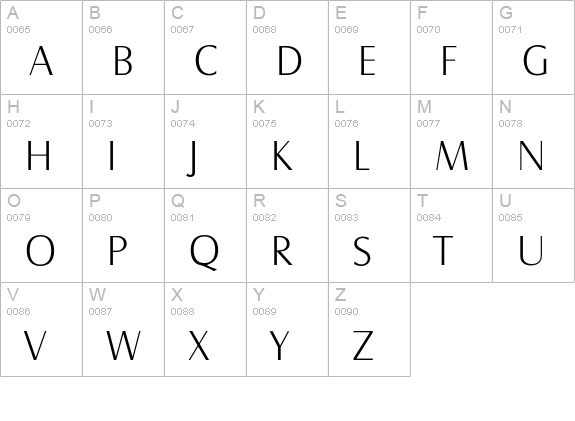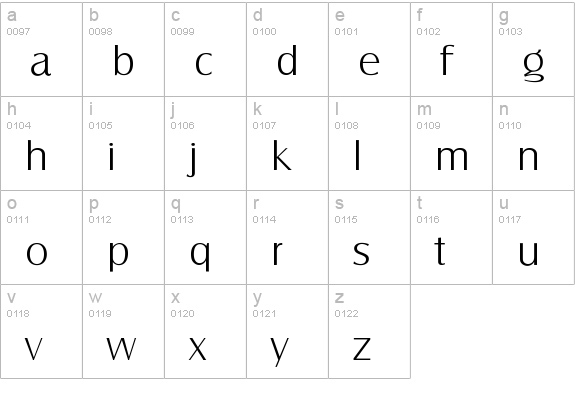
Salzburg-Xlight font is a modern and elegant typeface that exudes sophistication and refinement. With its slender and delicate letterforms, this font is perfect for creating a sense of grace and subtlety in any design project. The Salzburg-Xlight font effortlessly combines classic elements with a contemporary twist, making it versatile and well-suited for a wide range of creative applications. Whether you're designing a logo, crafting a wedding invitation, or creating a stylish branding campaign, this font will elevate your work and leave a lasting impression. One of the best things about Salzburg-Xlight font is that it is available for free download at FontsMarket.com. This means that you can easily access and use this stunning typeface without any hassle. Whether you're a professional designer or a casual enthusiast, this font is accessible to everyone, enabling you to bring your creative visions to life with ease. The clean and crisp lines of Salzburg-Xlight font make it highly legible, ensuring that your message is conveyed clearly and effectively. Its subtle curves and refined details add a touch of sophistication to any design, allowing you to create a polished and professional look. Whether you're aiming for a minimalist design or a more elaborate and decorative approach, Salzburg-Xlight font has the versatility to adapt to any style. Its timeless aesthetic ensures that it will remain a relevant and timeless choice for years to come. In conclusion, the Salzburg-Xlight font is a stunning typeface that combines elegance with modernity. Its free availability for download at FontsMarket.com makes it accessible to a wide range of users, enabling them to create beautiful and impactful designs effortlessly. With its versatility and timeless appeal, this font is a must-have for any designer or enthusiast looking to elevate their creative projects.